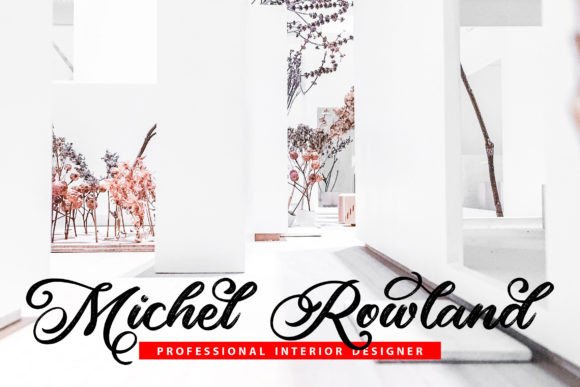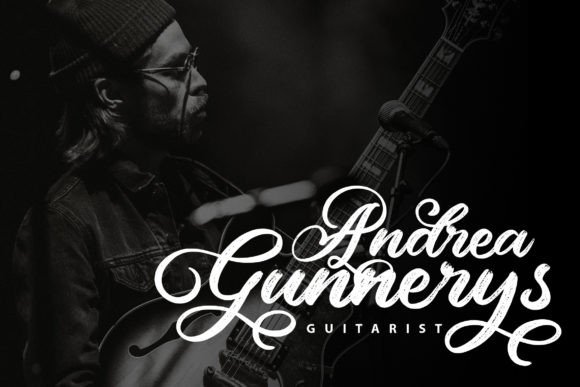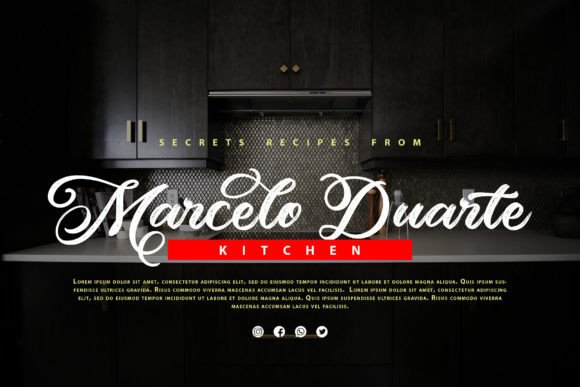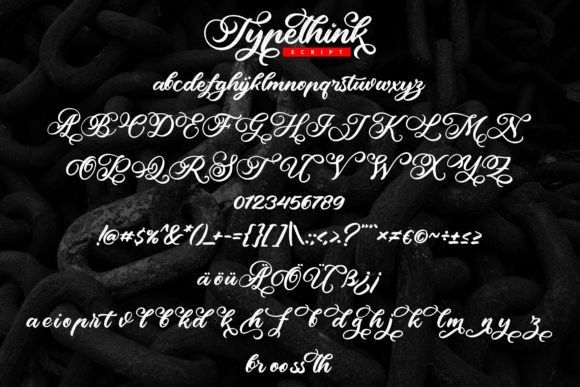
Typethink Font
About Typethink Font
**Typethink** is a cool and raw-brush handwritten font that has been masterfully designed to become a true favorite among designers and creators. This font possesses the potential to elevate each of your creative ideas to the highest level, thanks to its unique and distinctive look.
One of the standout features of Typethink is its cool and raw-brush design, characterized by bold brush strokes and an authentic, handcrafted aesthetic. Each letter is meticulously crafted to convey a sense of creativity and individuality, making this font an excellent choice for projects where you want to create a visually striking and artistic impression.
Typethink’s versatility shines in various design contexts. It can be used for crafting posters, branding materials, logos, social media graphics, product packaging, advertisements, product designs, labels, photography watermarks, special events, and much more. Its raw-brush appearance ensures that your work is both visually captivating and authentic.
For posters and branding, Typethink adds a touch of boldness and creativity to your designs, ensuring that they stand out and make a statement.
In product packaging and labels, this font brings a sense of authenticity and craftsmanship, making your products more visually appealing and artisanal.
On social media and in advertisements, Typethink’s raw-brush look enhances the visual impact and appeal of your posts and graphics, making them captivating and engaging.
In summary, Typethink is a cool and raw-brush handwritten font that has the power to elevate your creative ideas to new heights of style and authenticity. Its versatility and distinctive design make it a fantastic choice for various design projects, where it can infuse your work with a sense of creativity and individuality. Embrace Typethink to create visually captivating and authentic designs that captivate your audience.